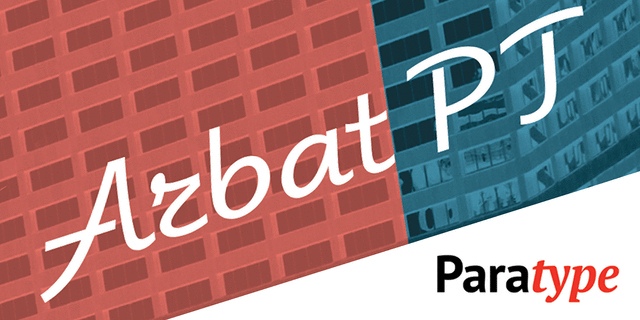
Arbat PT Font
Arbat PT Font is perfect for editorial design, magazine layouts, book publishing, newspaper headlines, academic publications, corporate reports, professional presentations, and digital content where superior readability and typographic excellence are essential.
What makes Arbat PT Font so exciting is its exceptional balance between traditional newspaper typography heritage and contemporary digital optimization that delivers outstanding performance across all media platforms. The carefully engineered letterforms provide unmatched clarity and reading comfort in both long-form content and display applications.
The Arbat PT Font family includes light, regular, medium, bold, and black weights, each available in upright and italic styles, offering designers a comprehensive typographic toolkit for complex editorial and corporate design projects.
This professional typeface represents the pinnacle of modern editorial typography, combining proven newspaper design principles with advanced digital font technology. The Arbat PT Font Free Download gives publishers and designers access to a world-class font that excels in high-volume text applications.
The font's robust character set includes extensive language support, advanced OpenType features, and carefully adjusted spacing metrics that ensure consistent text flow and optimal readability at any size. Each weight has been individually crafted to maintain visual consistency throughout the entire font family.
Arbat PT Font features enhanced legibility characteristics that make it ideal for both screen reading and print applications. The typeface's neutral yet distinctive personality allows content to shine while providing subtle typographic sophistication that enhances the overall reading experience.
Whether you're designing newspapers, magazines, books, or digital publications, this font delivers professional results that meet the highest industry standards. The versatile design works equally well for headlines, subheads, body text, and captions in multi-layered editorial layouts.